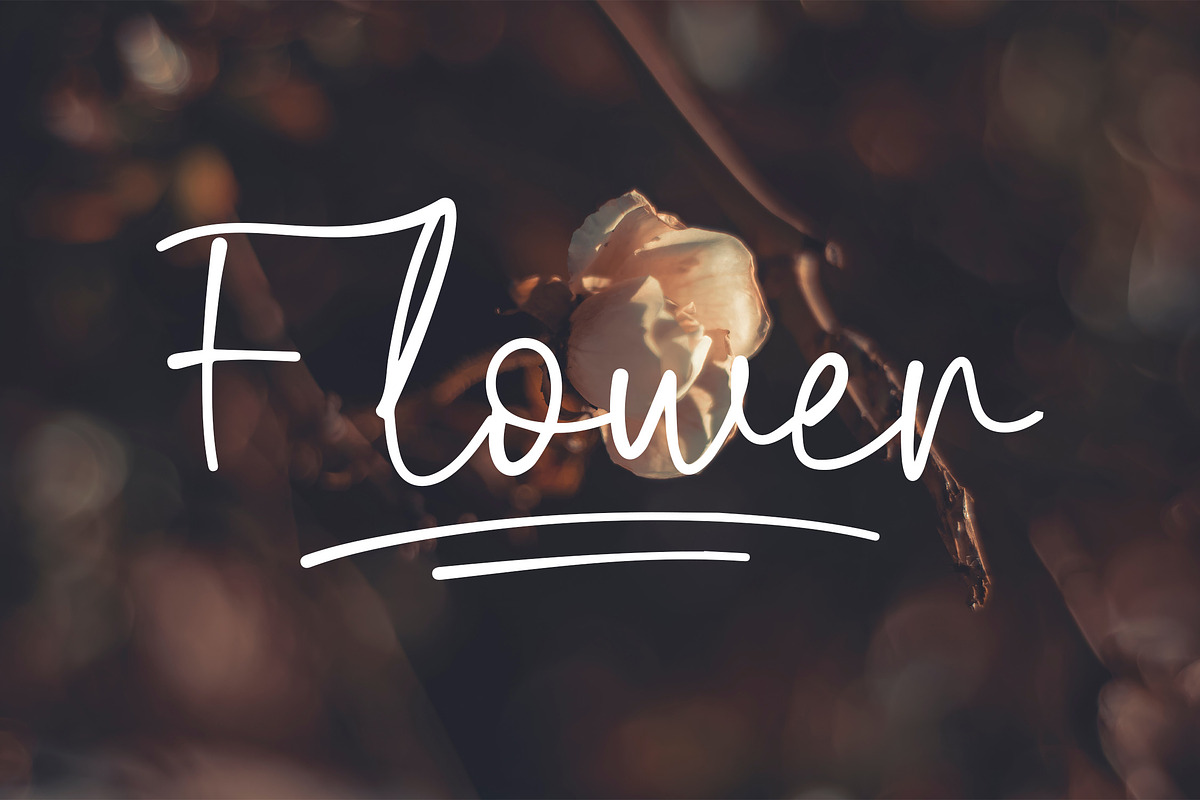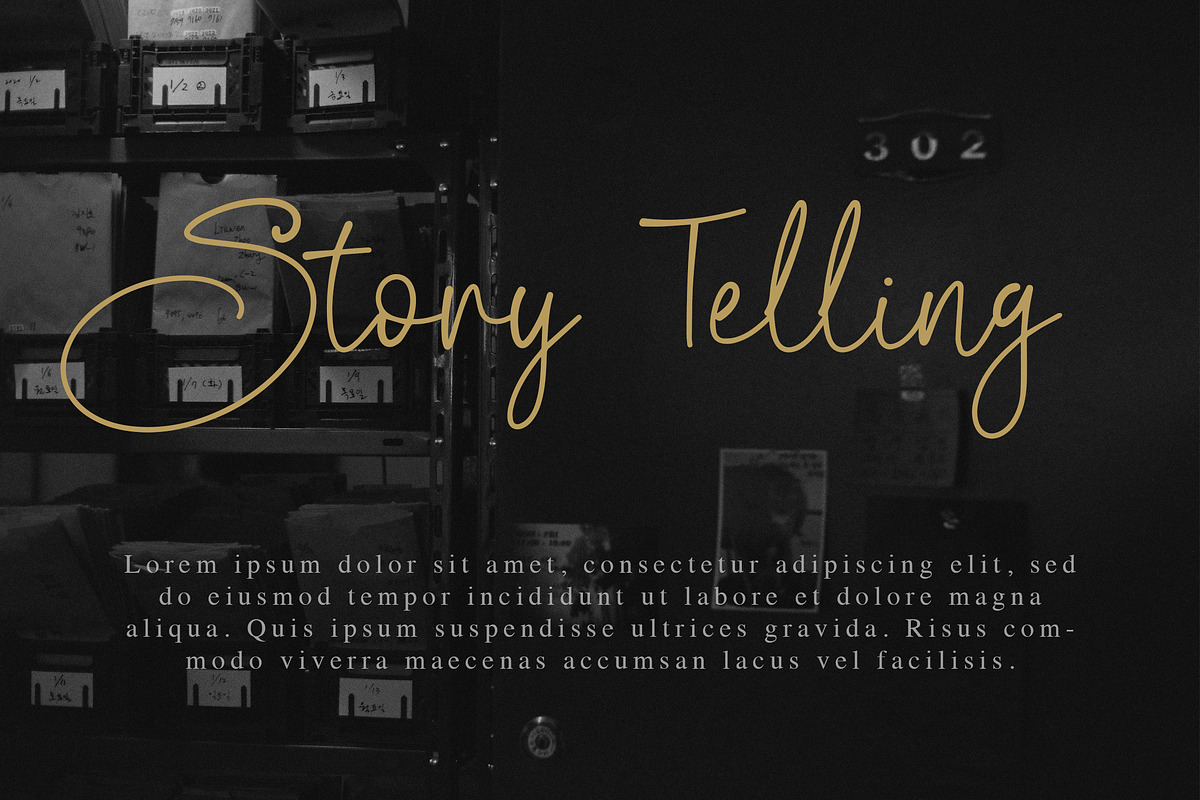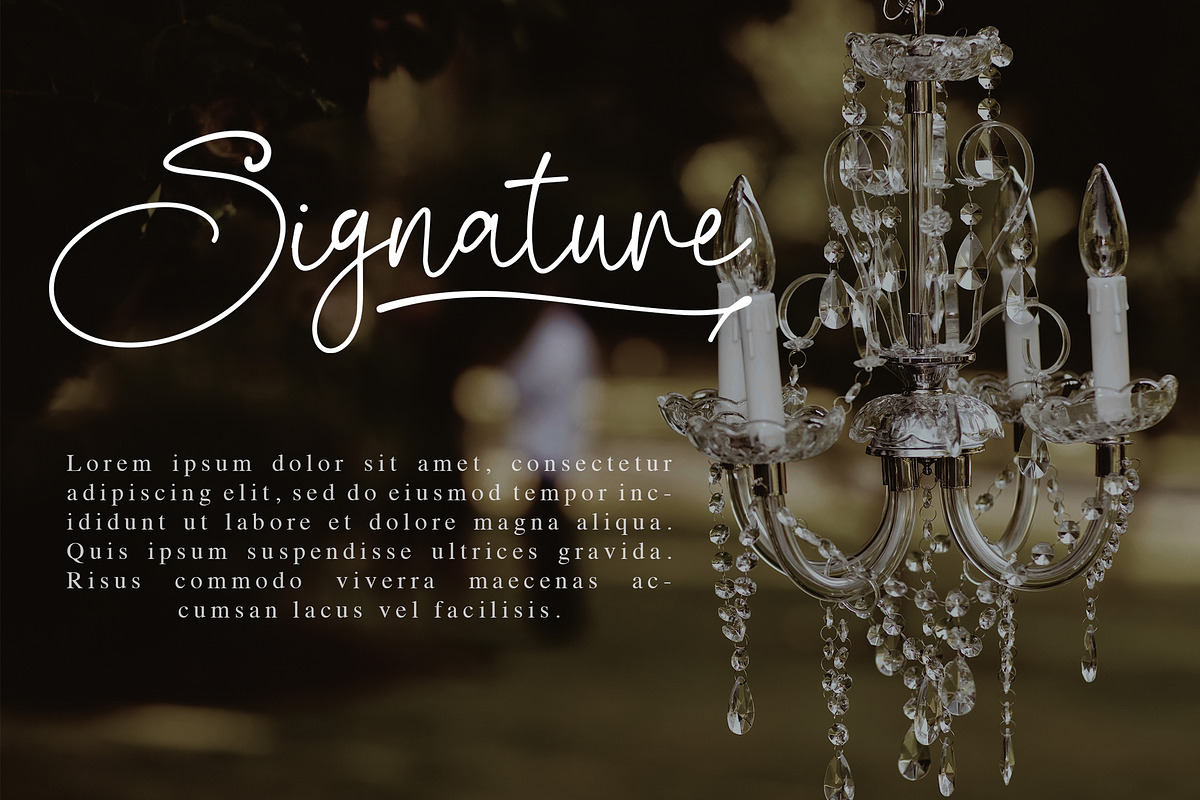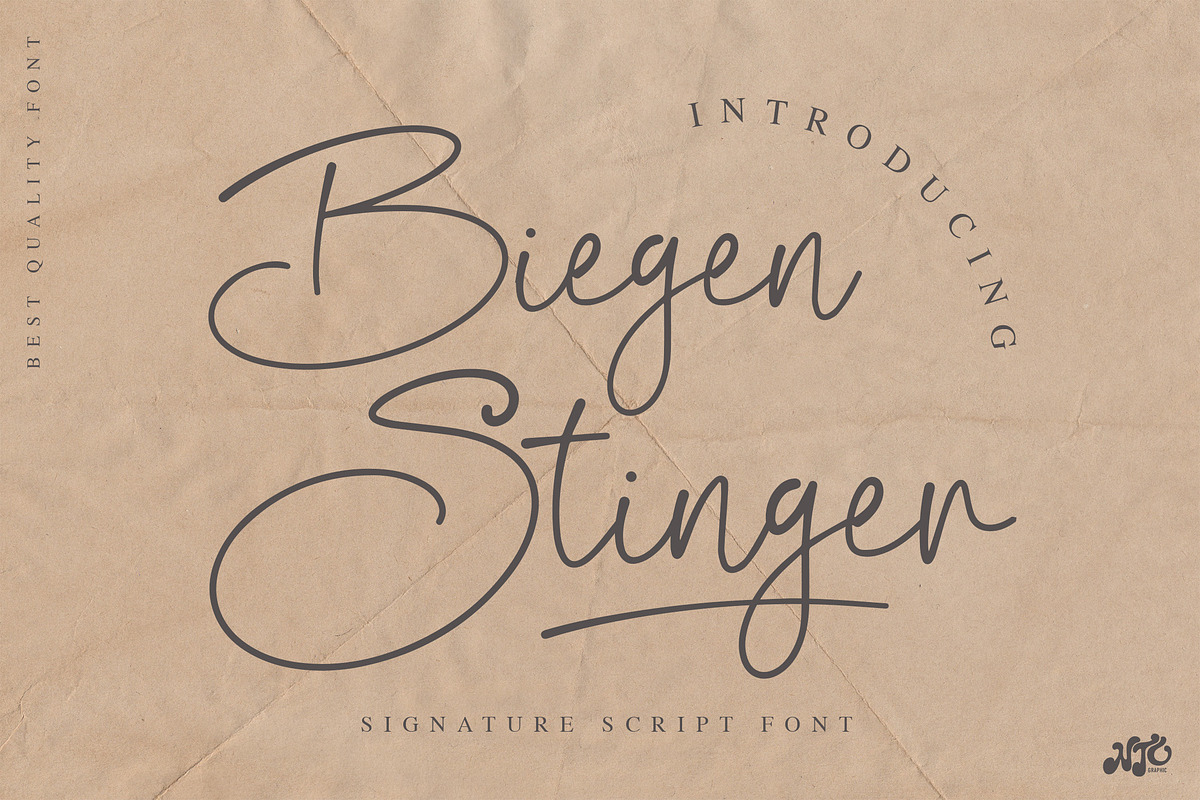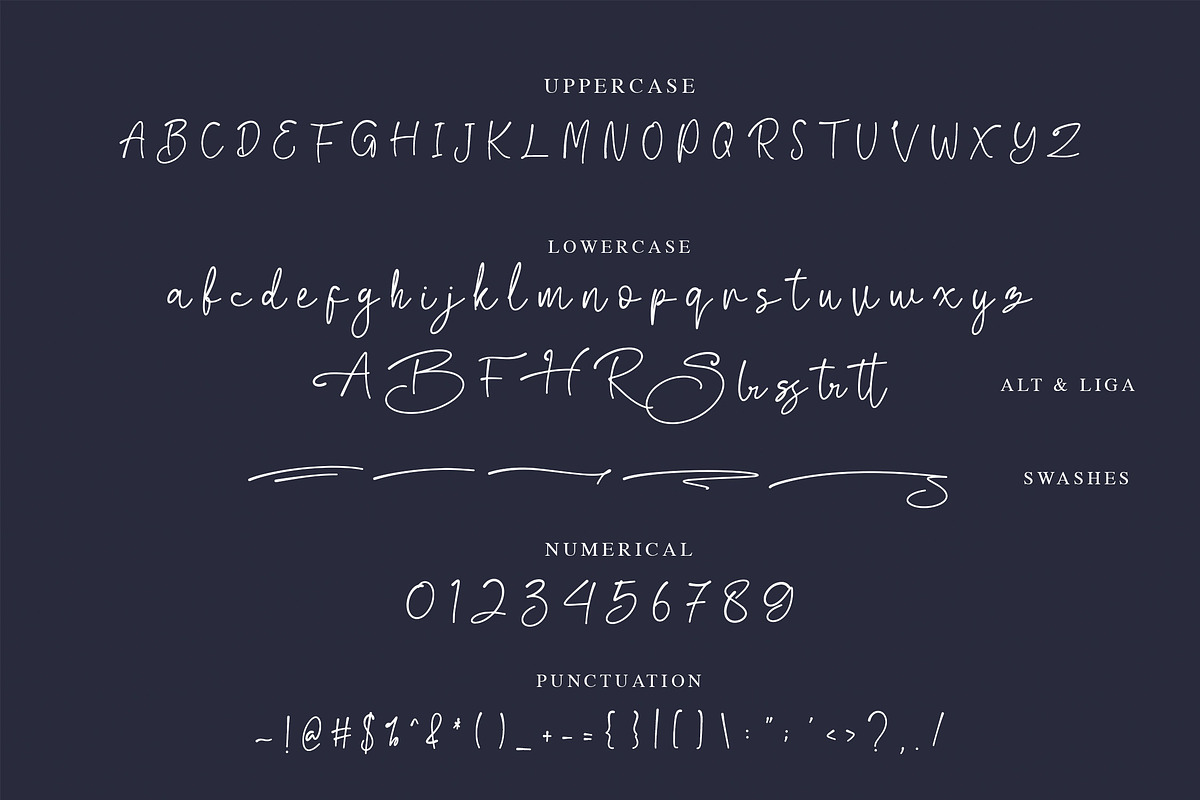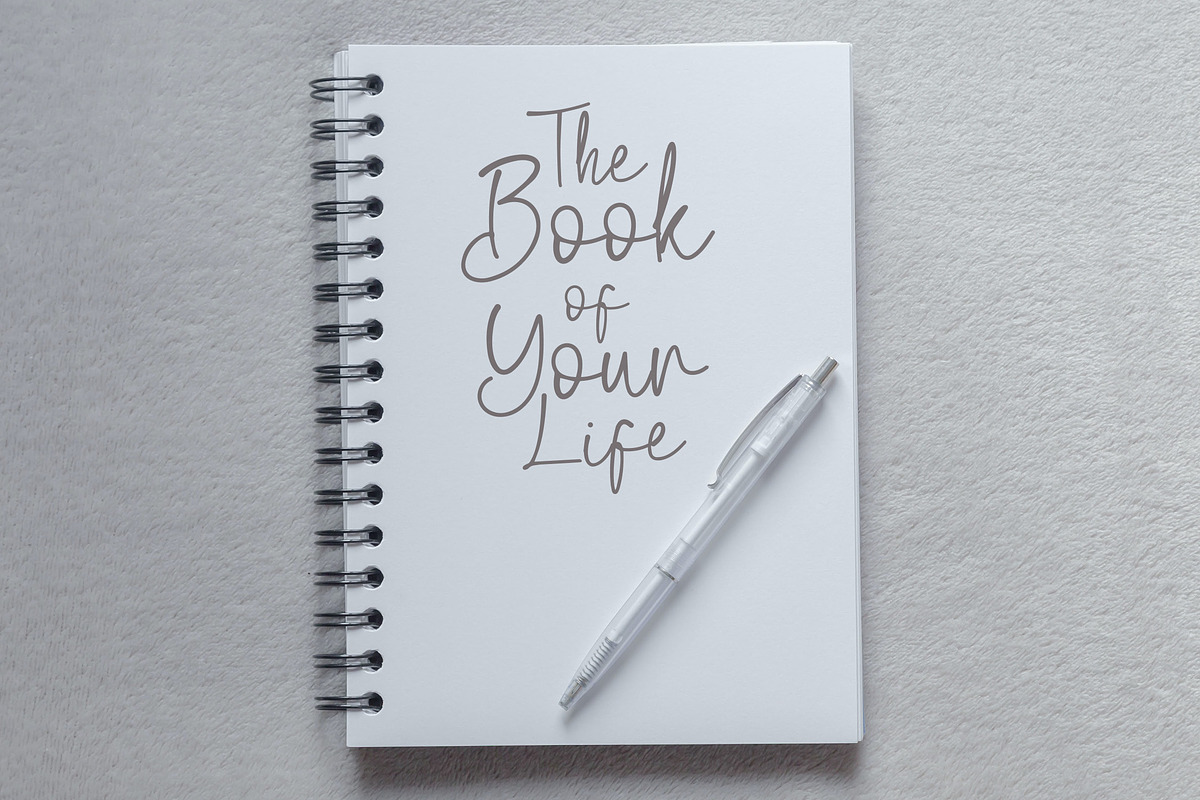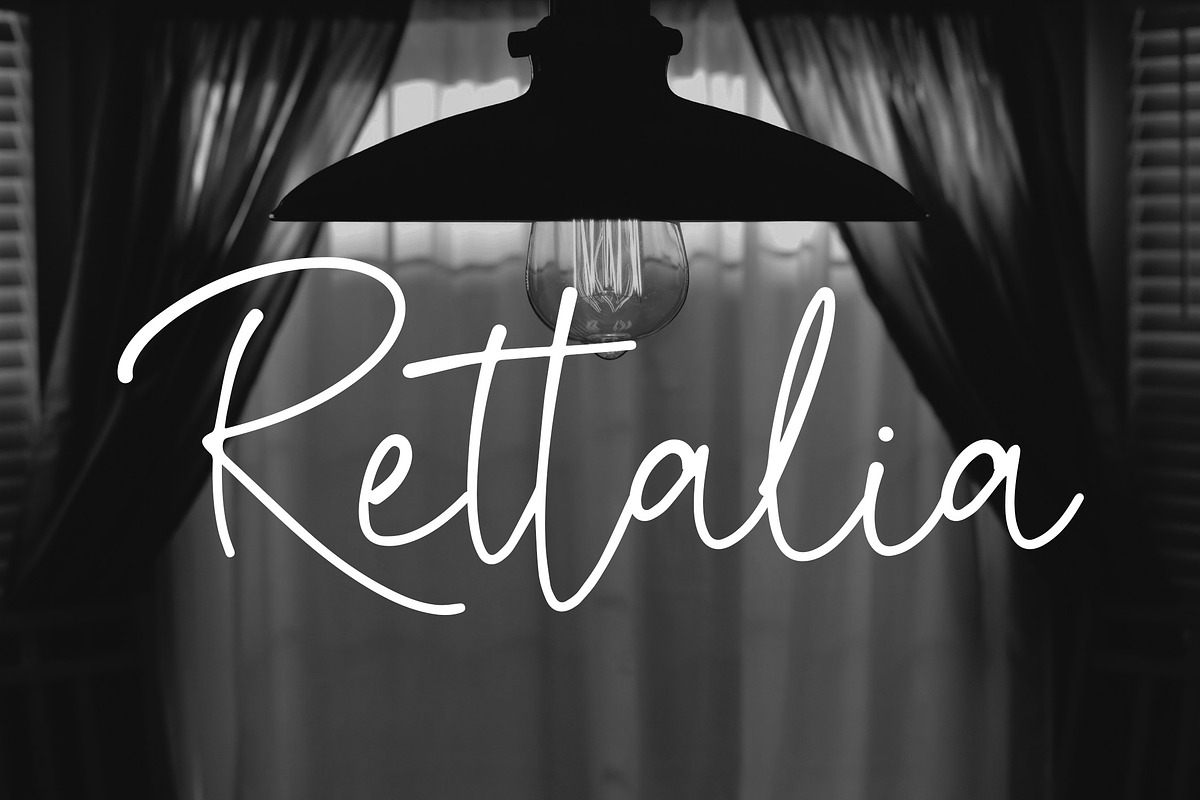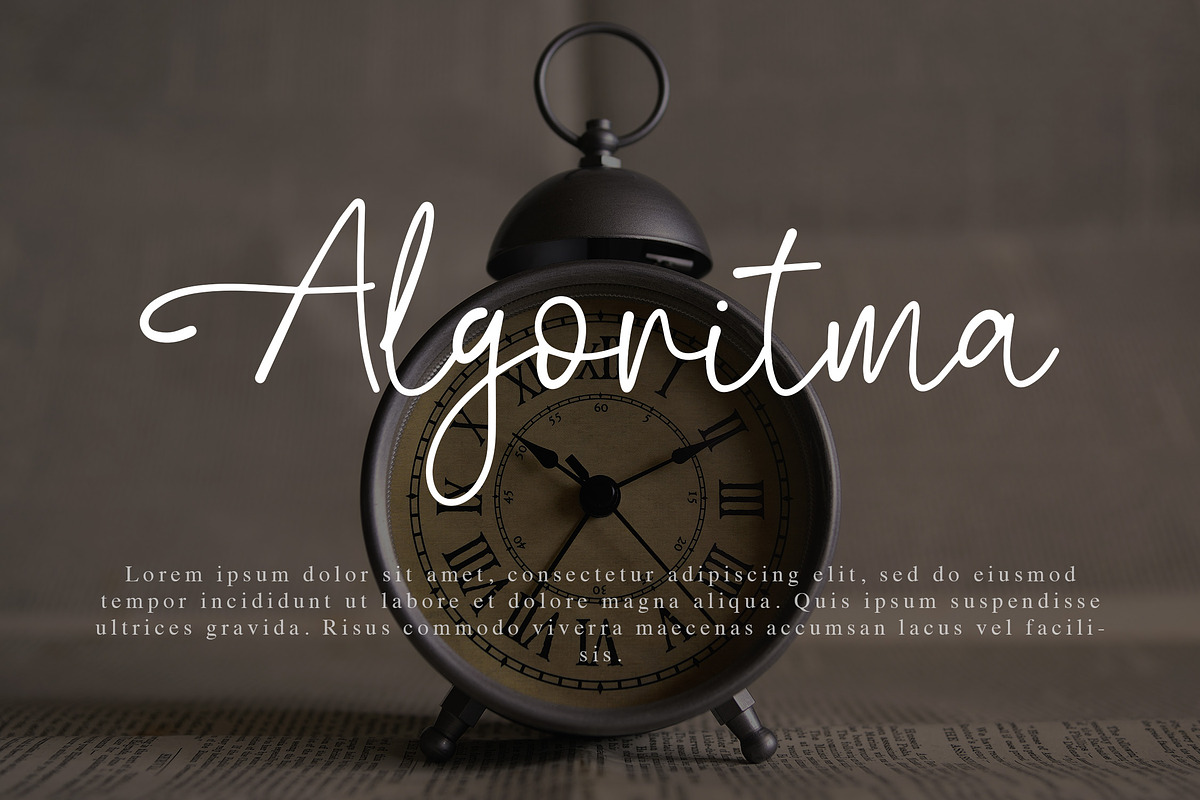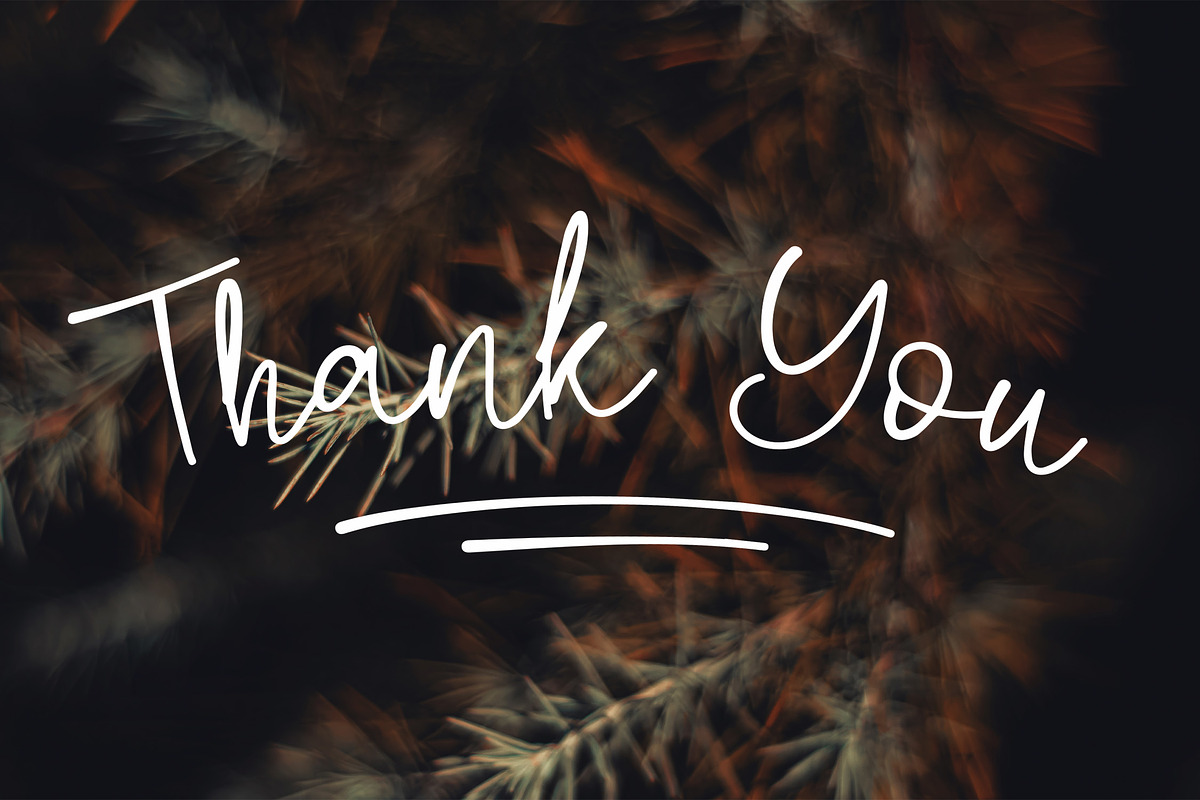
Biegen Stinger - Script Font
Biegen Stinger is a beautiful script font with a feminine signature style. Is a font style that is made with scratches and curvature shapes font characters are very beautiful. Can be applied to support the graphic appearance of the product to be more attractive and unique. This font is suitable for making previews and covers, logo designs, shirt designs and other graphic needs.
Biegen Stinger font with uppercase characters A-Z, lowercase characters a-z, punctuation, swashes, stylistic alternate and ligature characters that enhance this font shape.
-Ligature
-Stylistic Alternate
-Swashes